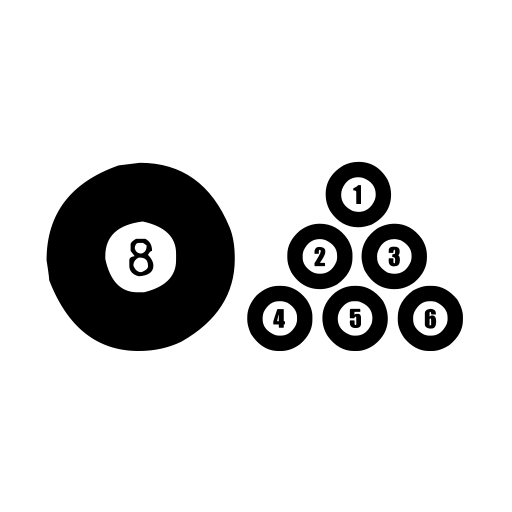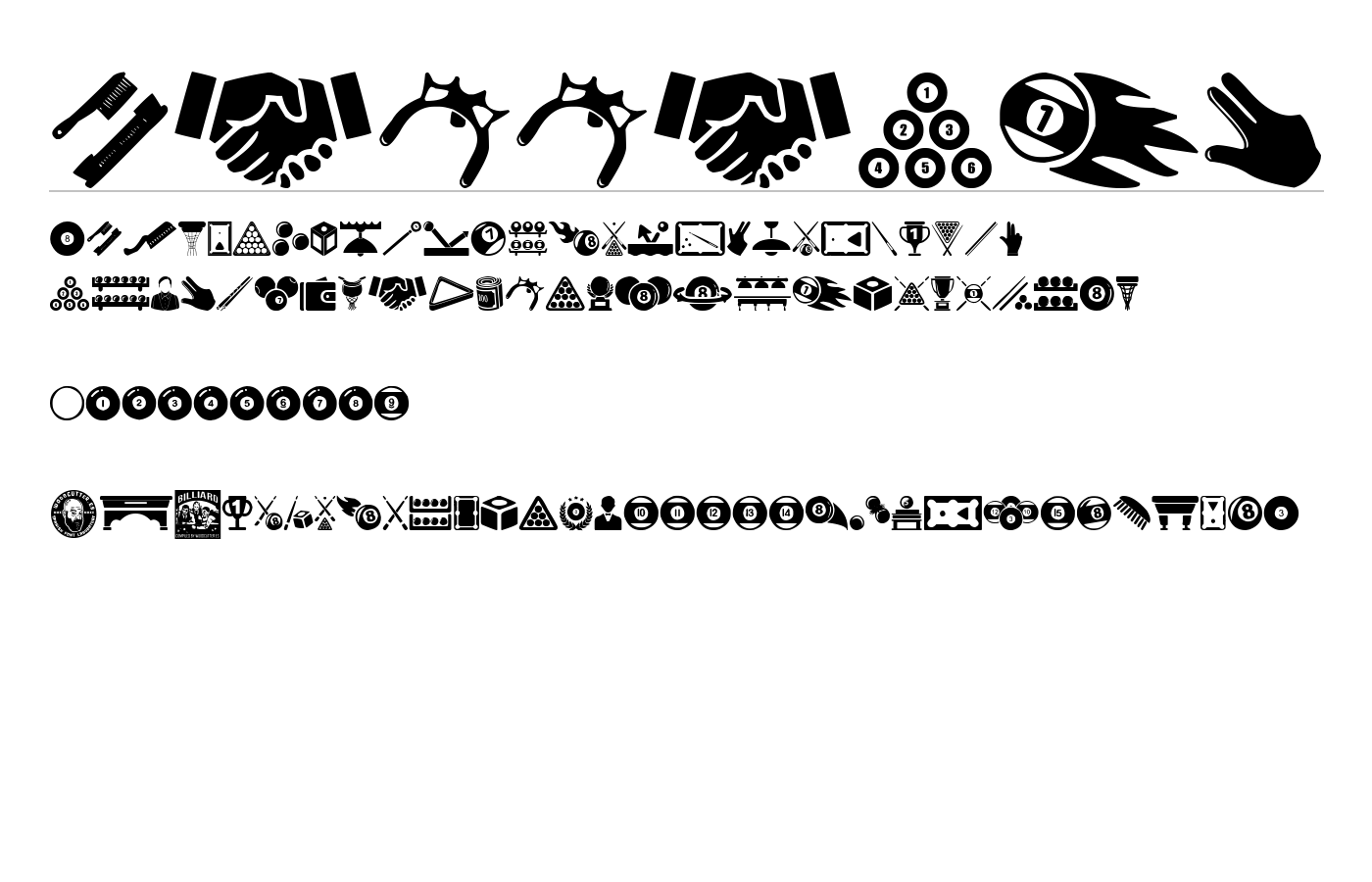
Billiard Font is a playful and highly specialized symbol font designed around billiards and pool themes, featuring detailed pictograms such as balls, cues, racks, handshake icons, and various game-related elements. Its bold, black silhouette style makes these symbols instantly recognizable and visually impactful, ideal for use in sports-related branding, event promotions, or themed designs where clear, thematic imagery is needed rather than traditional text. This font works best for logos, posters, and decorative elements that require a fun, sporty vibe connected to billiard culture.
Billiard Font